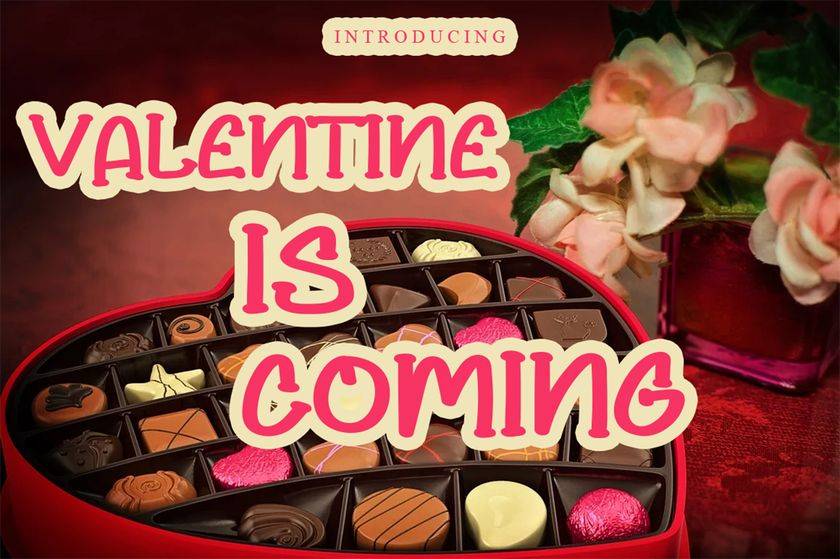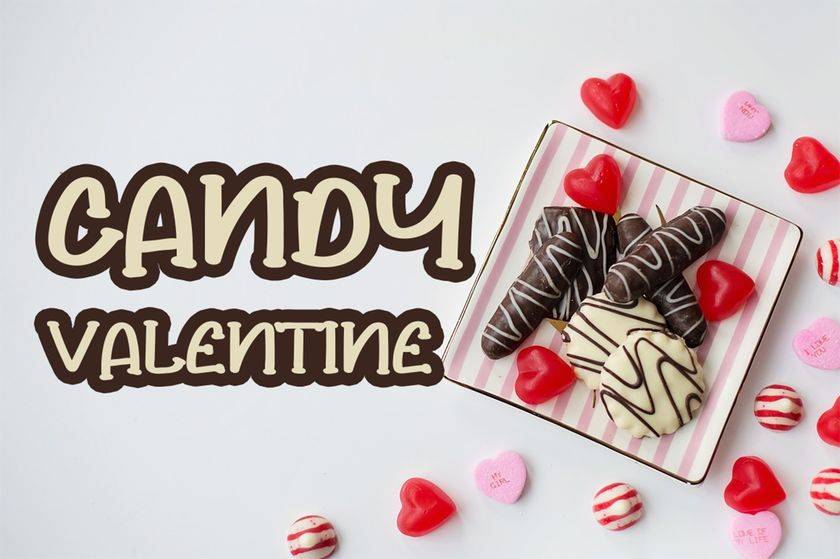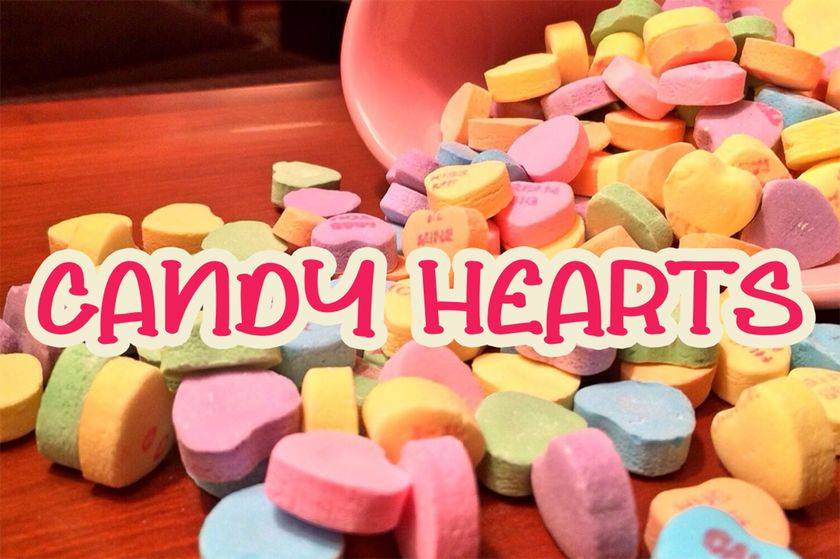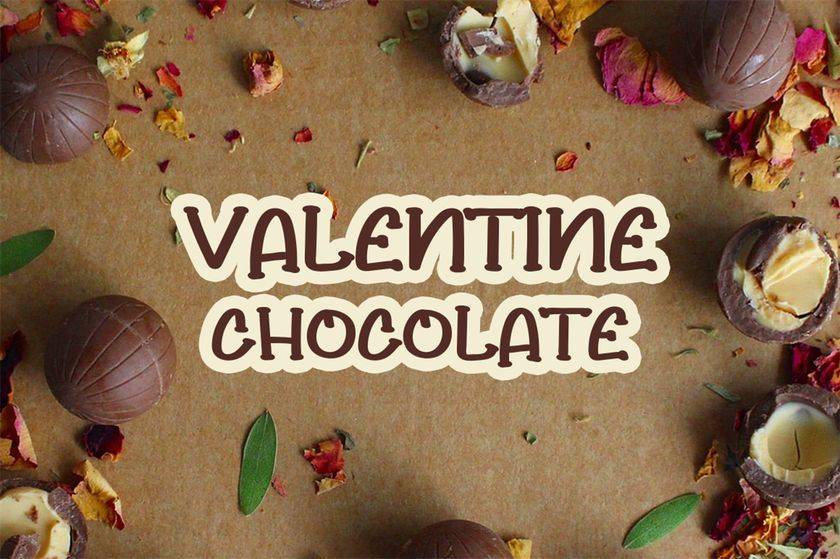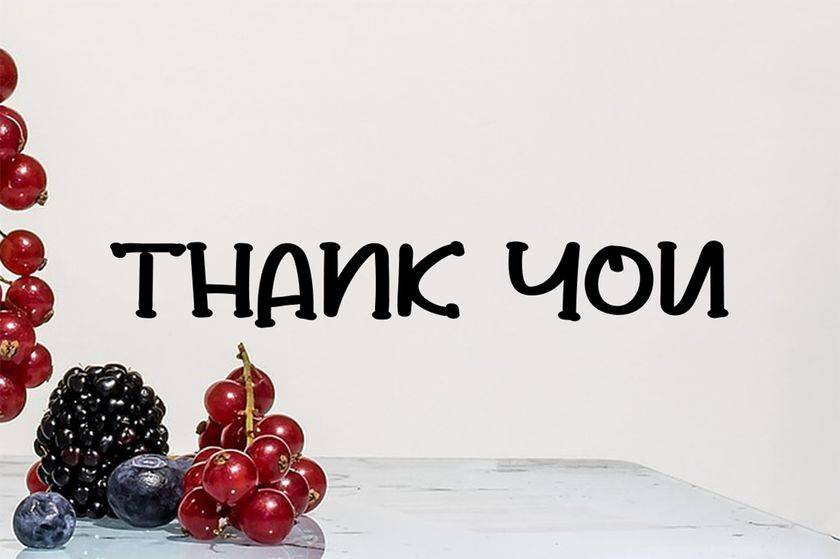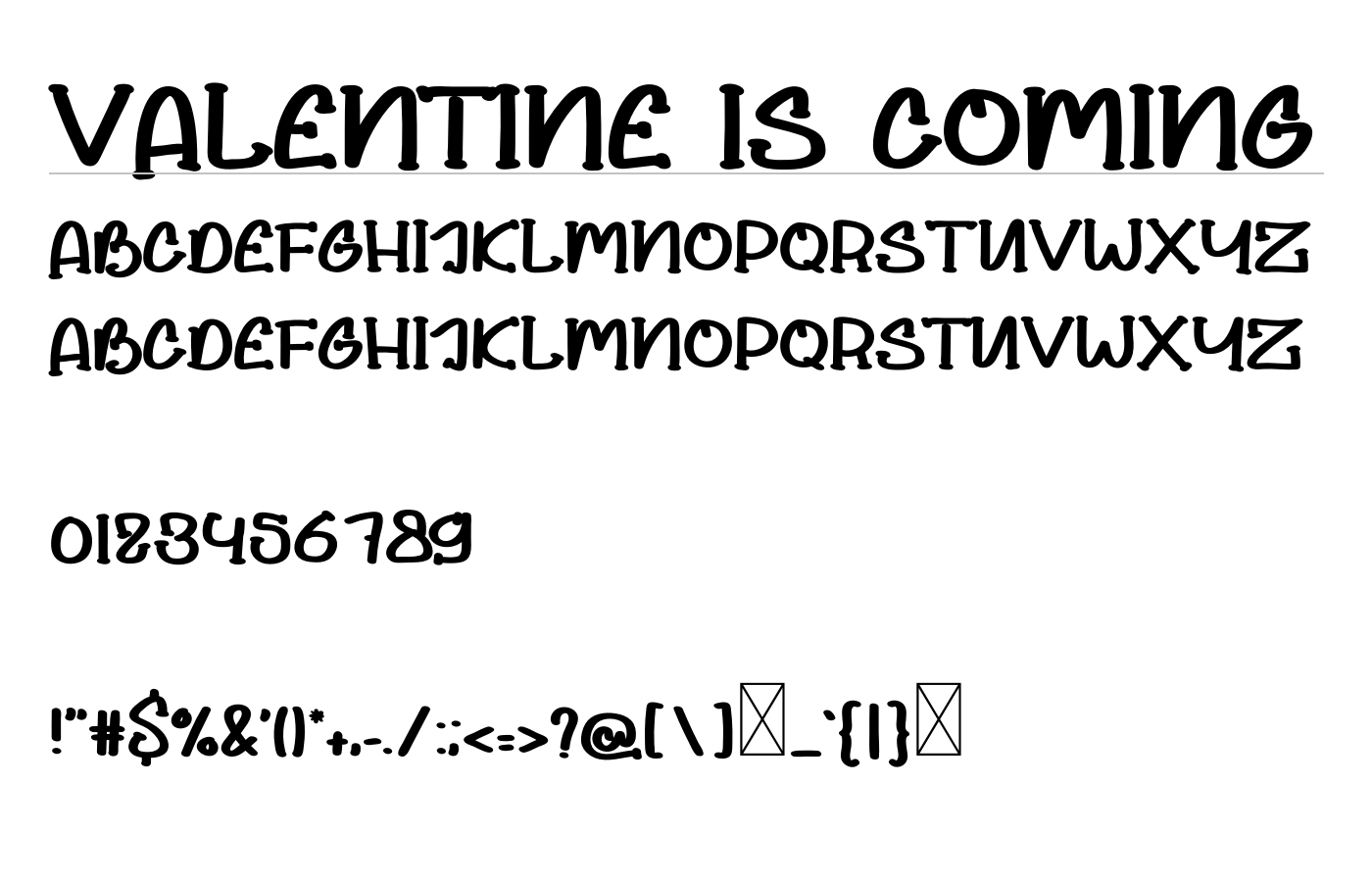
Valentine is Coming is a playful and casual sans serif font with lively, hand-drawn letterforms. It features moderate stroke contrast and rounded edges, giving it a friendly and approachable vibe ideal for fun, youthful designs. This font works wonderfully in creative headlines, greeting cards, and informal branding where a warm, inviting feel is desired.
Valentine is Coming Font
About Valentine is Coming Font